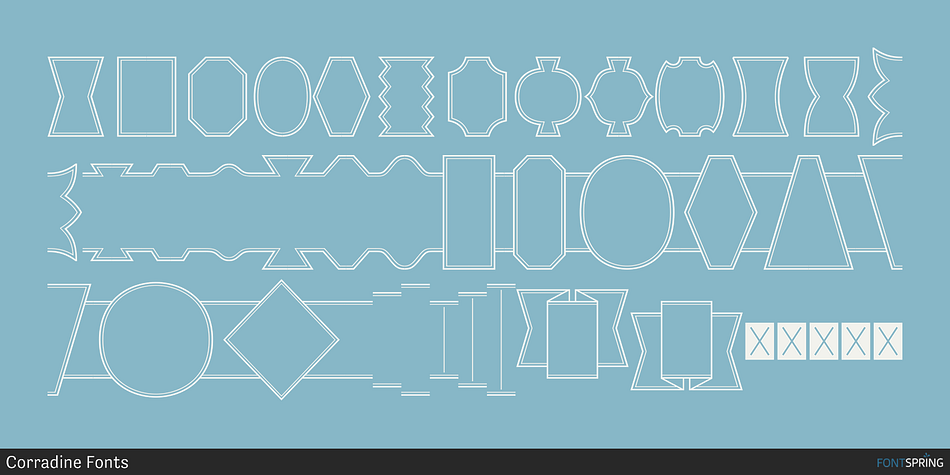
Alianza Labels Regular
Alianza Ornaments is a dingbat font family. This typeface has three styles and was published by Corradine Fonts.
This font was specifically designed for use with Alianza Slab, Alianza Italic, and Alianza Script.
This is a complex typographic system which includes three different but complementary styles so far: Slab, italic and script, with nine weights each one; plus three sets of ornamental fonts: labels, negative labels and ornaments.
The soul of the family is a slab feeling applied judiciously to the italic and script styles to make it coherent with the whole system.
Each style has three sets of figures: Proportional lining, tabular lining and old style.
You can mix the three styles in a single piece to obtain more expressive results without worrying about the uniformity and complementing the design by using the ornamental sets.